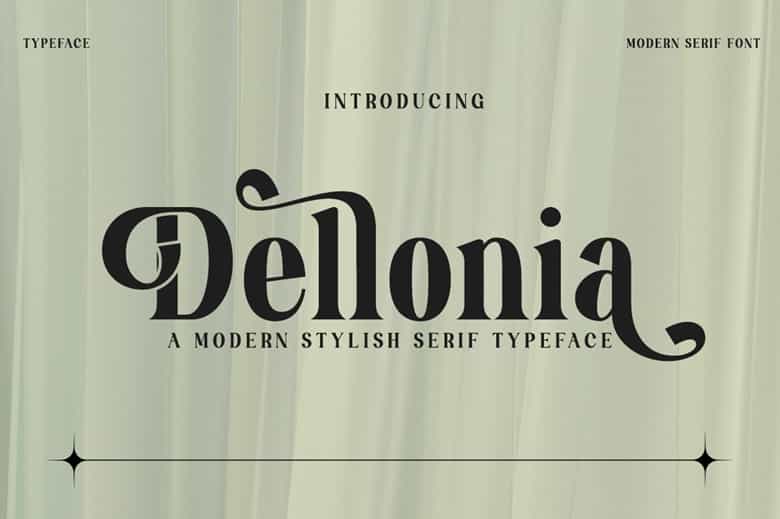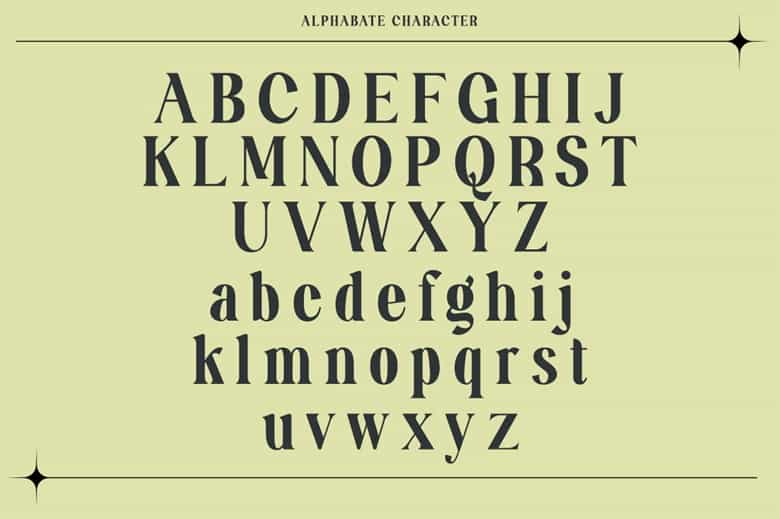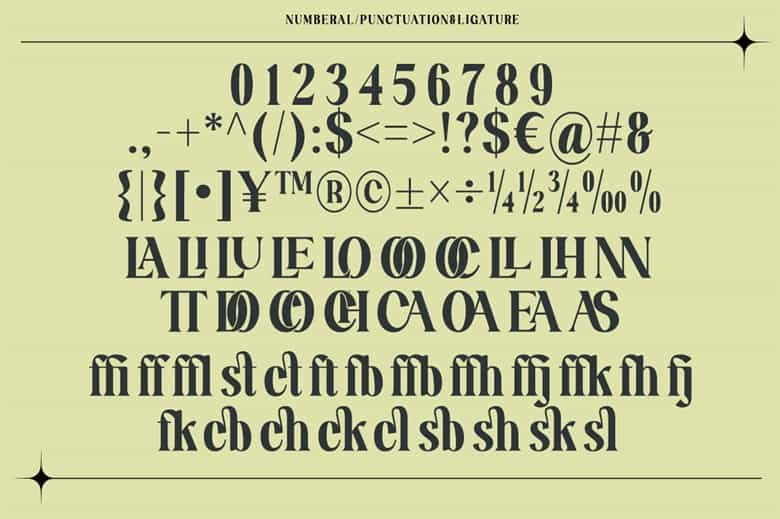
Dellonia is a modern stylish serif typeface that has a clean look and contains delicate nuances of the designs of the past with contemporary design. Ideal for headlines, logos and branding, Dellonia shines with its bold-thin contrast and sharp serifs, perfect for a business and elegant look.